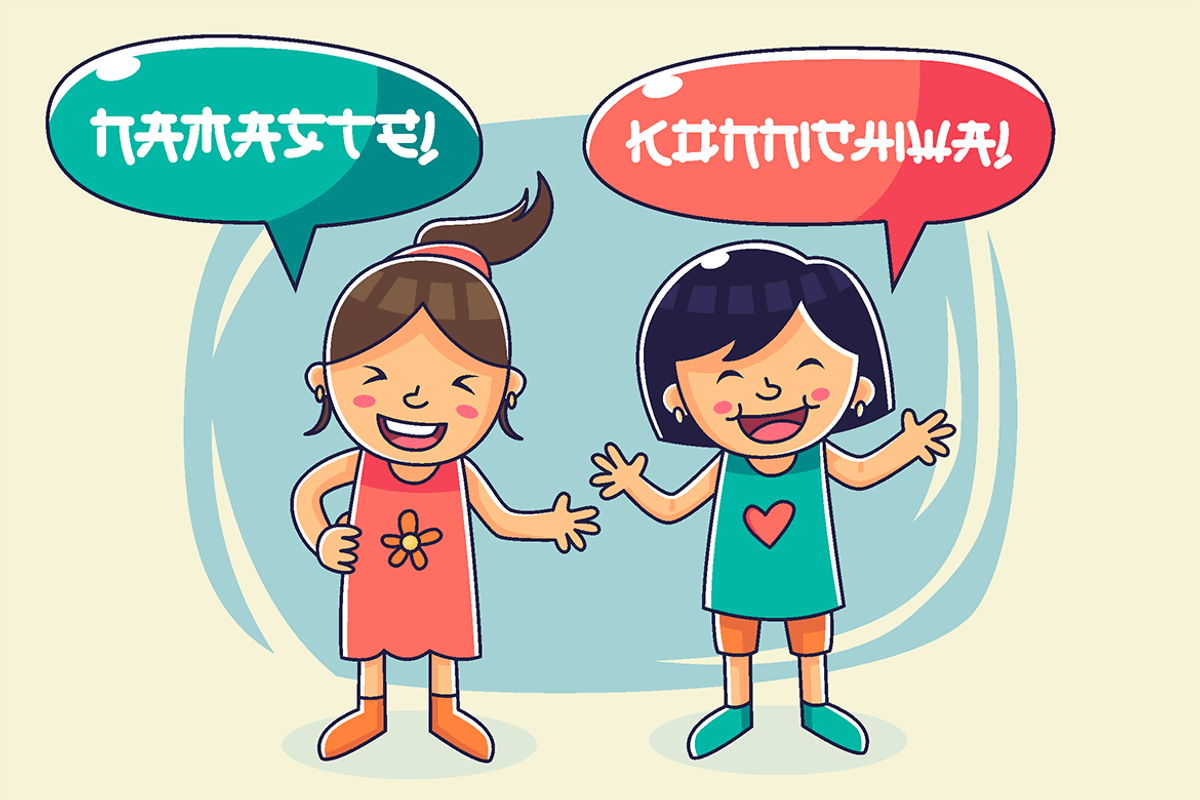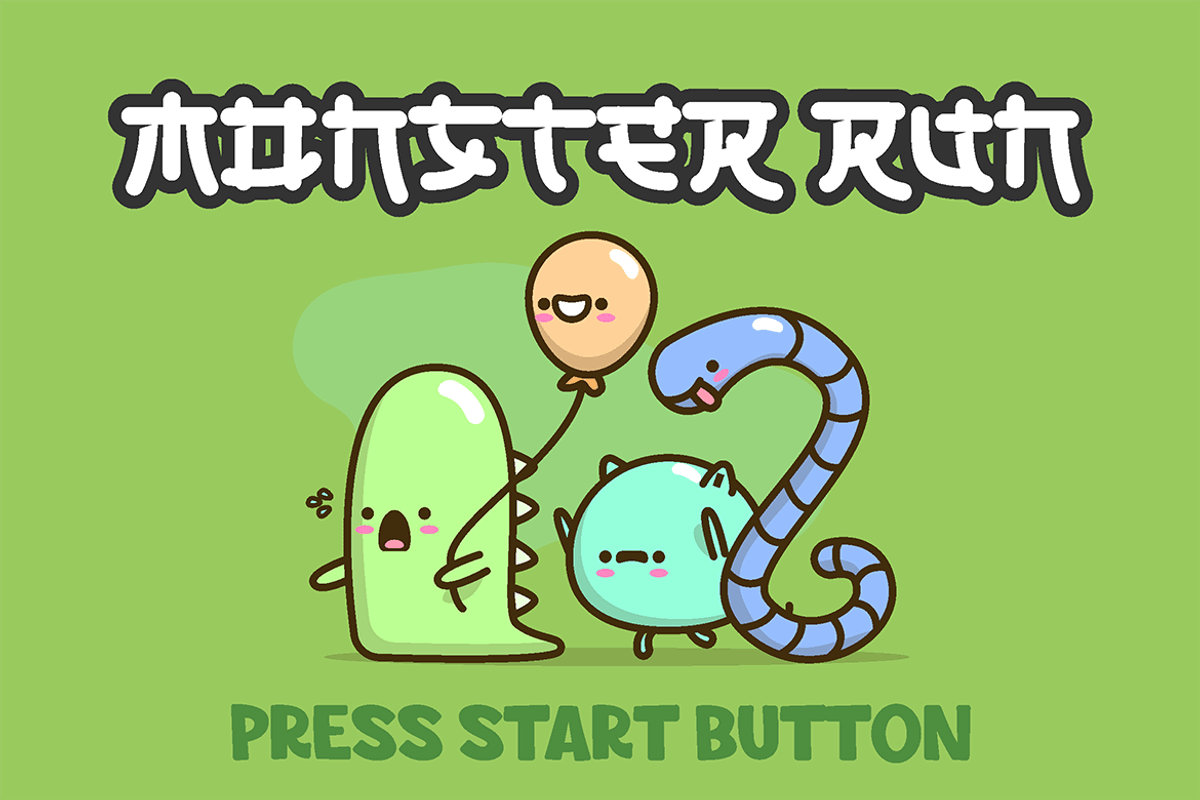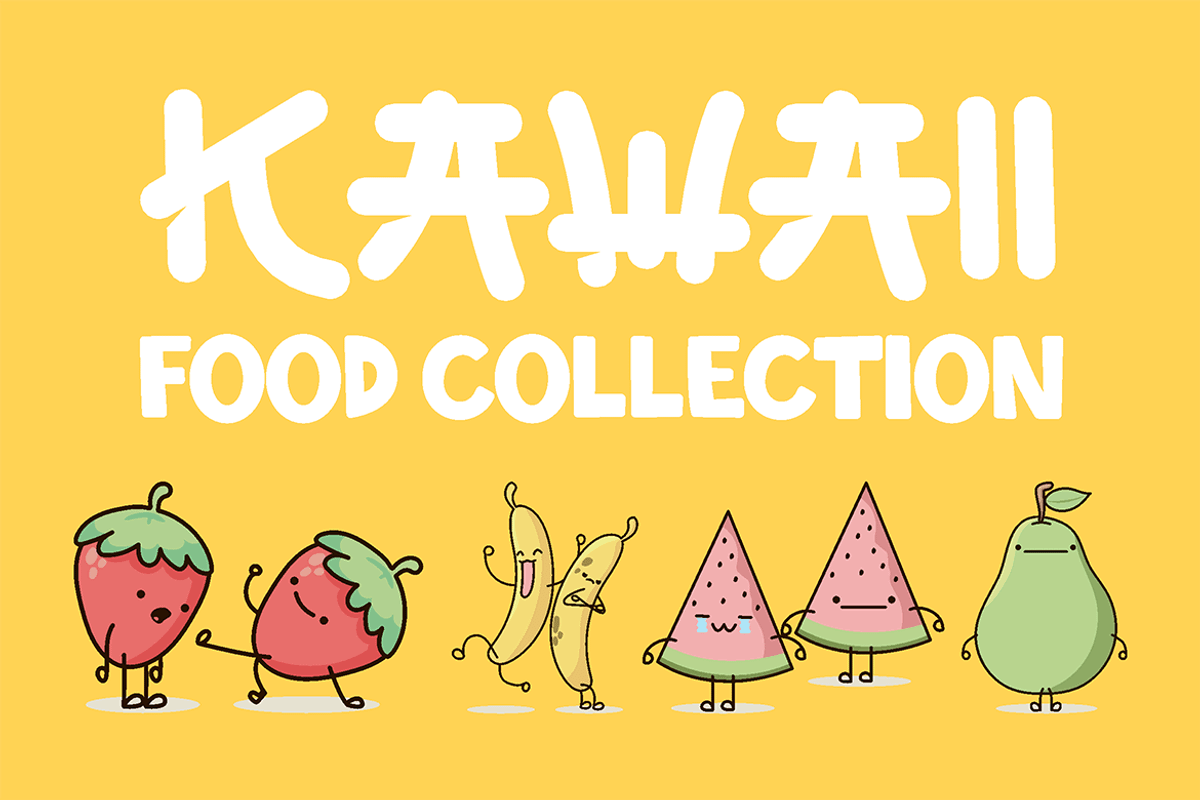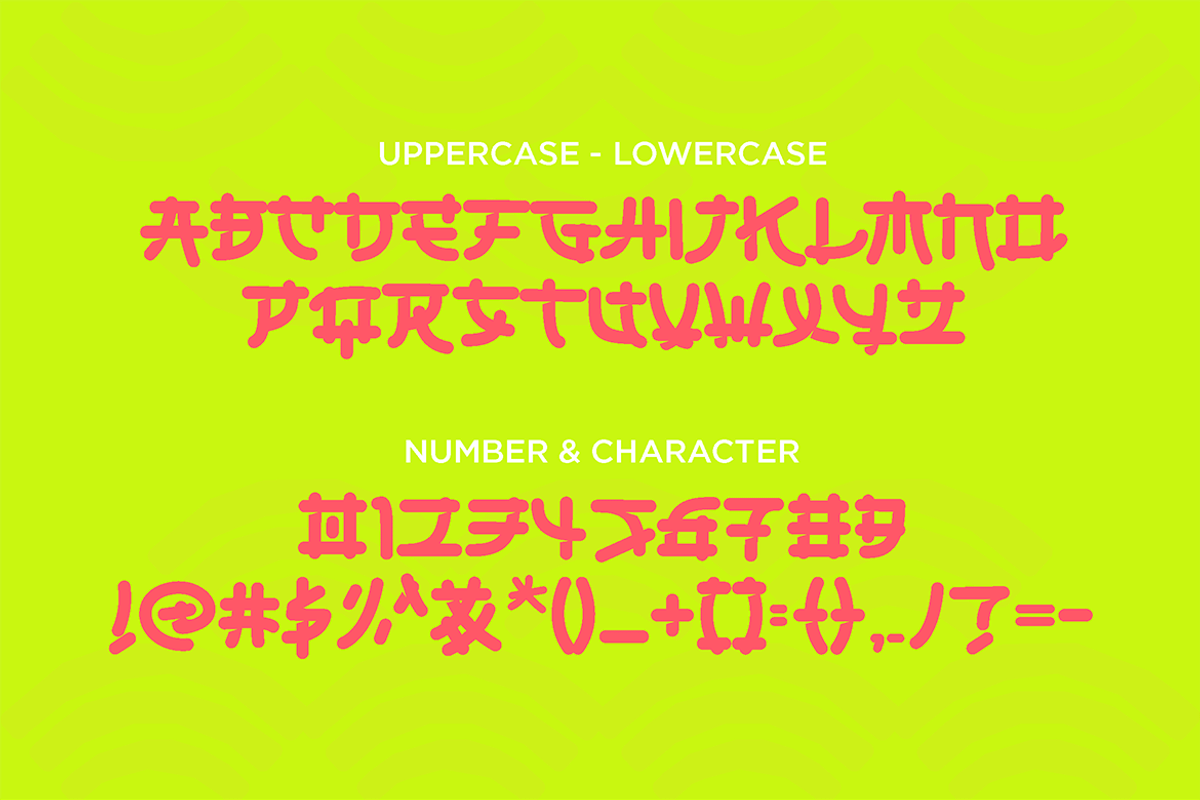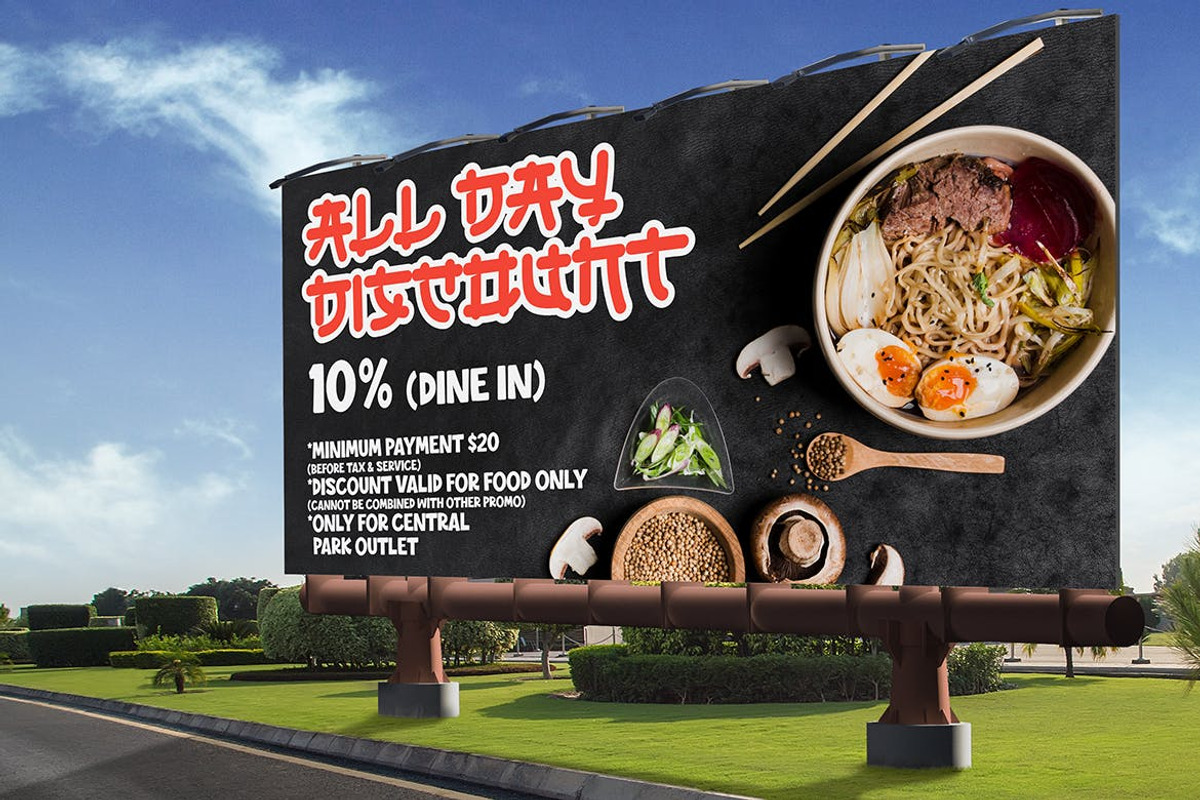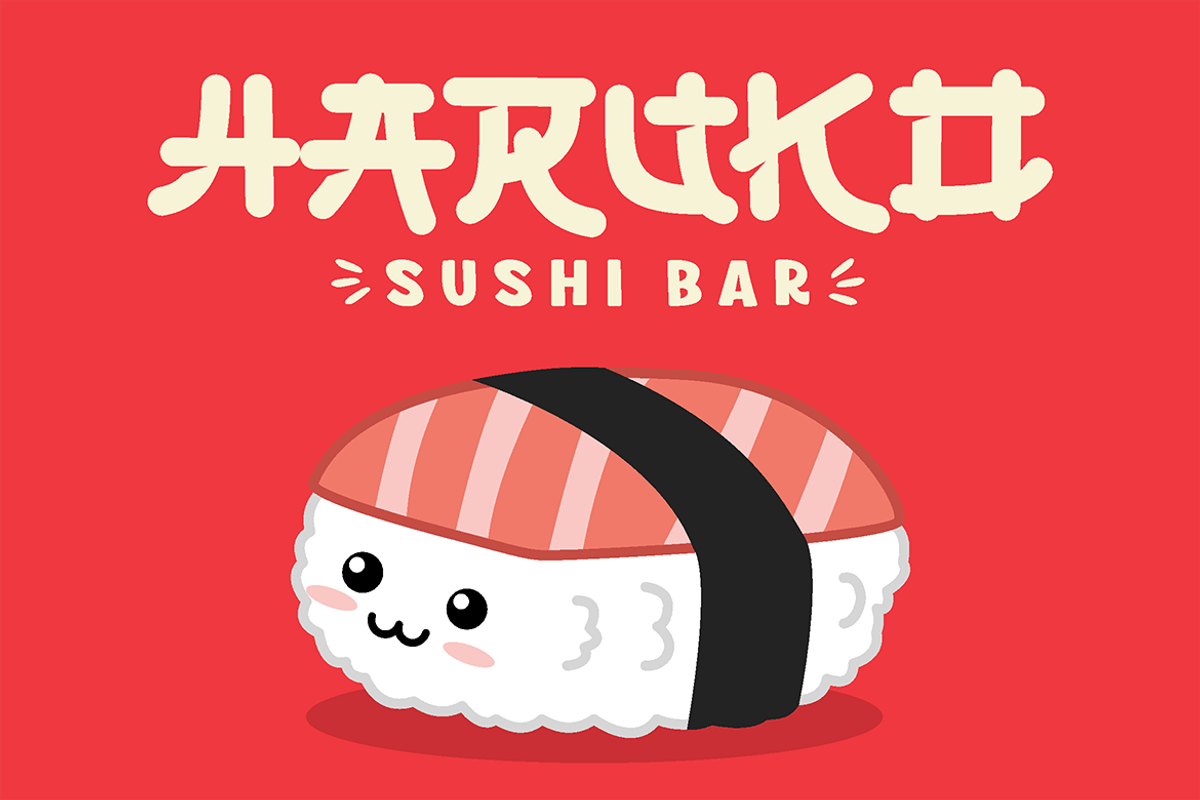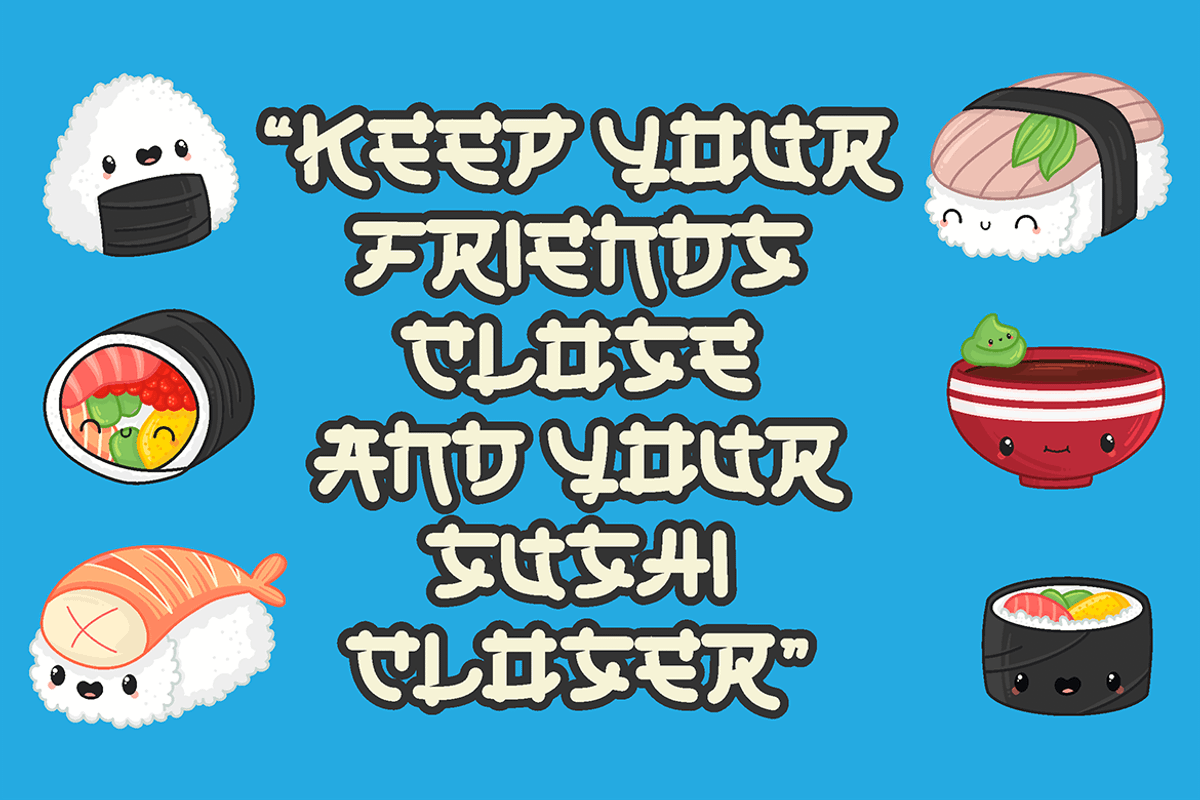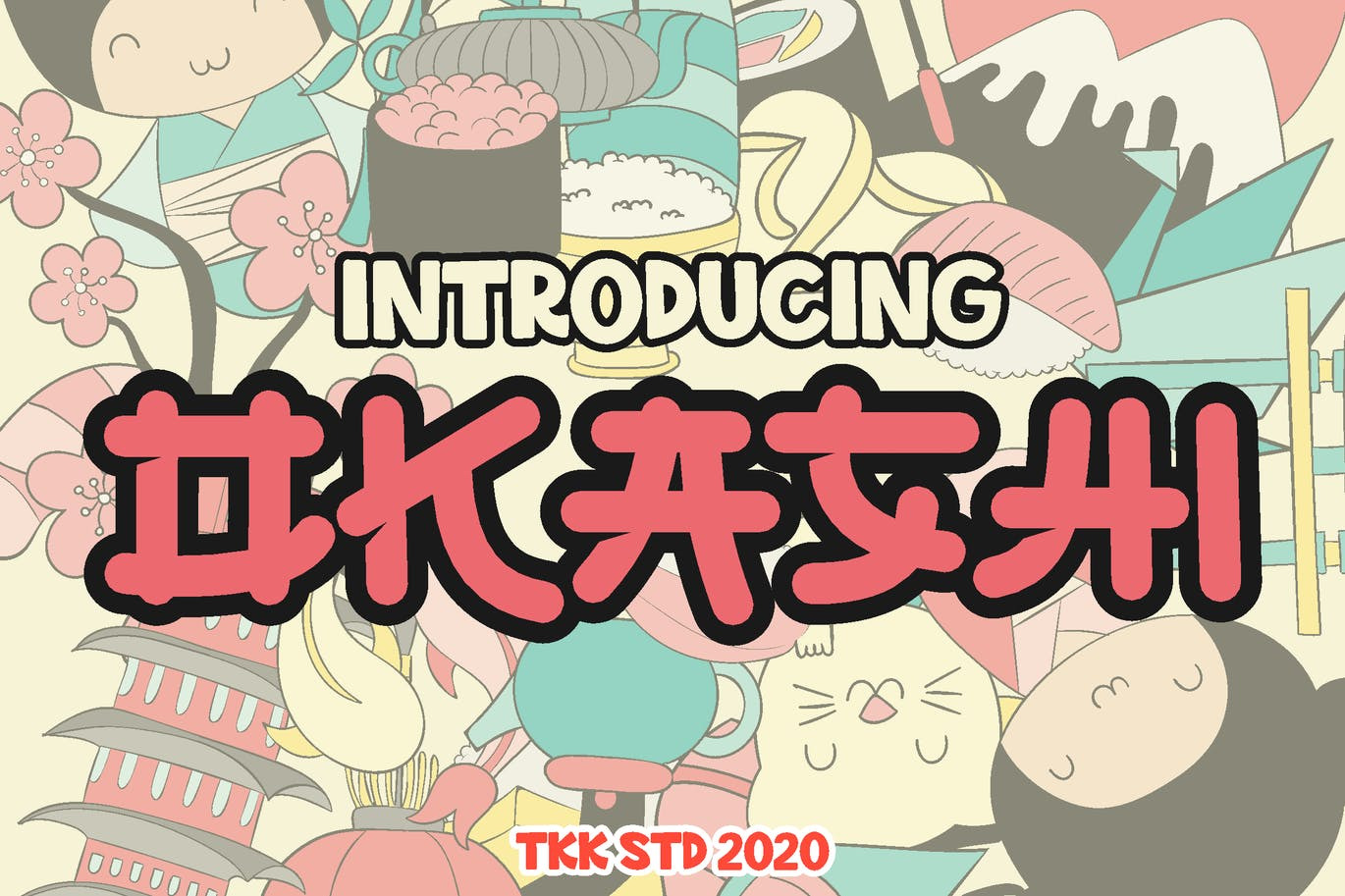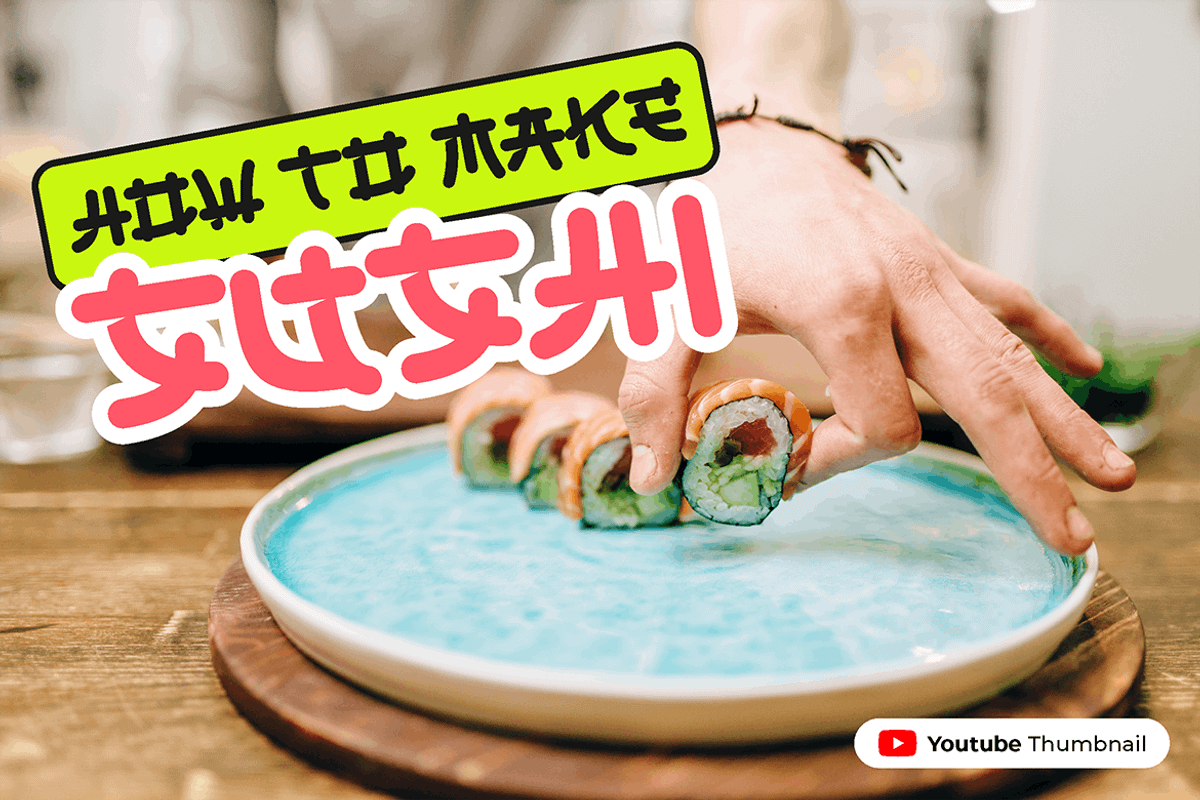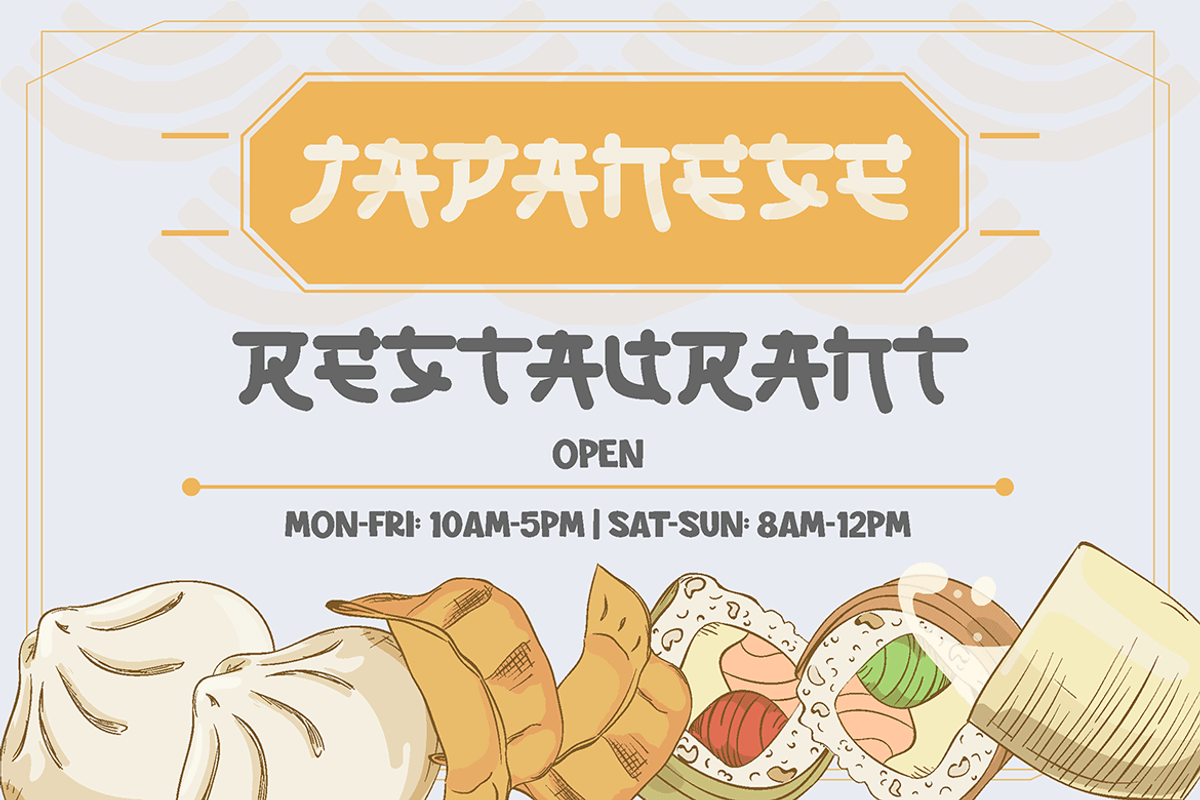
OKASHI - Japanese Font
OKASHI Japanese font or Jap font took katakana shape, and take it to the cute cartoon children world. With rounded shape and cut-out on the intersection, emphasize the cuteness but still action feel on it.
Suit perfectly for Online Games, poster, movie title, fast food menu, magazine, youtube covers, youtube thumbnails, social media page covers and so on…